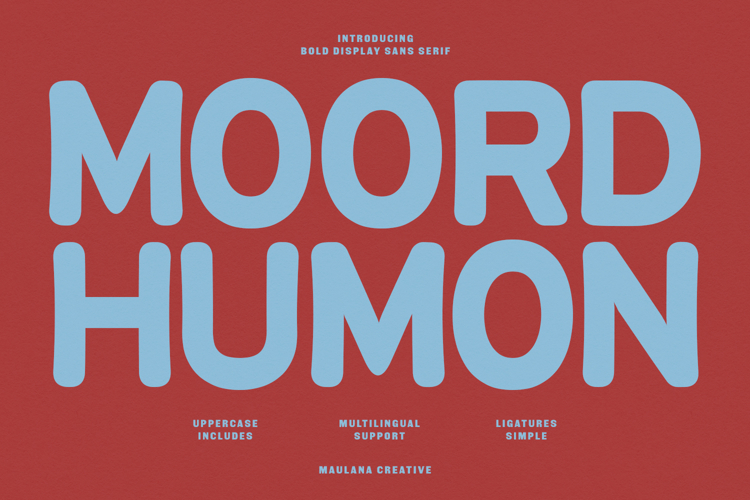
Moord Humon is a bold display sans serif font featuring rounded edges and a playful, heavy-weight design. This typeface combines a friendly aesthetic with a strong visual presence, making it highly effective for headlines, large-scale displays, and creative branding. Equipped with unique ligatures, uppercase letters, numbers, and multilingual support, it offers excellent versatility for logos, packaging, poster designs, and modern graphic layouts that require a fun yet impactful look.